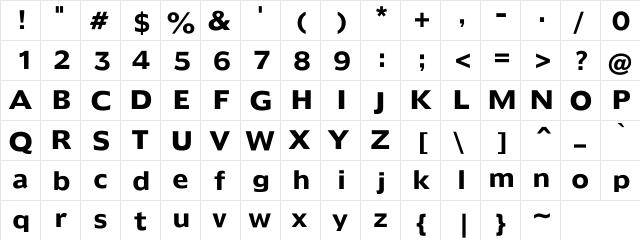
South Central ExHeavy Regular
Design Context for South Central ExHeavy Typeface
South Central ExHeavy offers clean, dependable letterforms without strong stylistic allegiance, making it a practical choice for designers who need flexibility.
Pro Tip: Use South Central ExHeavy in both headline and body roles to test its range before committing to a single application.